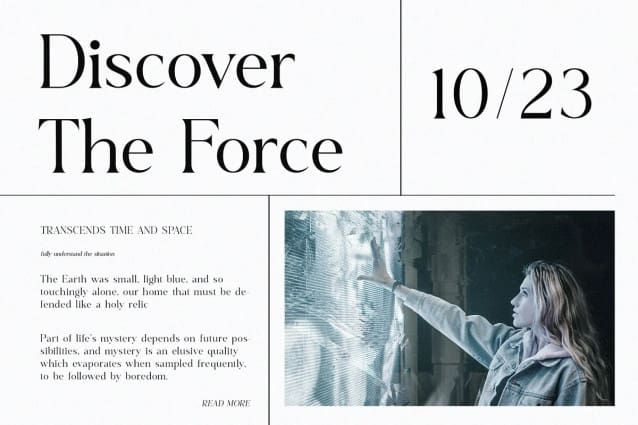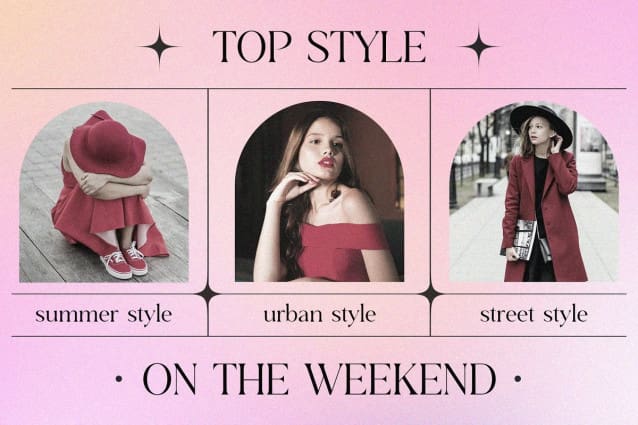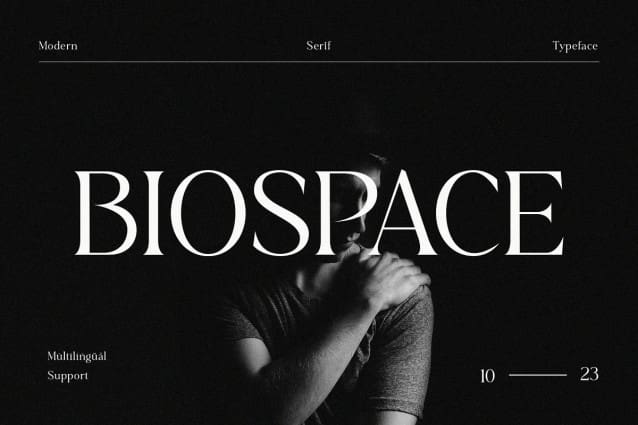
Biospace Font
Biospace Font brings out the letters with a stunning look. This elegant serif comes in both uppercase and lowercase letters, with multilingual support. Neatness and fine lines have been added to the lettering to give it an aesthetic and modern feel.